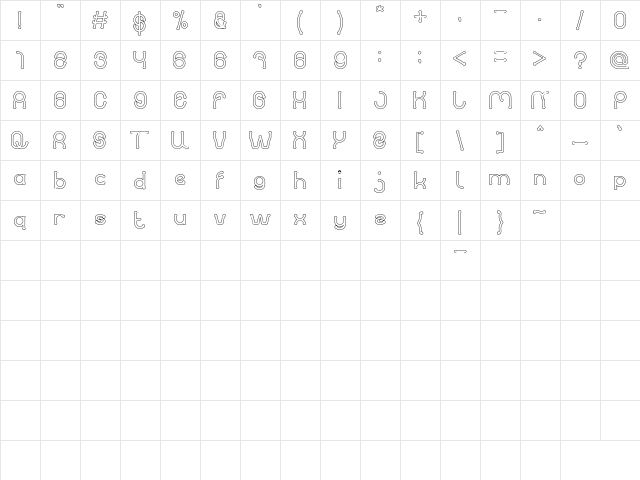
PANEL Regular Free Font
PANEL Regular
Complete PANEL Regular glyph index. Displaying only characters natively supported by PANEL Regular font.
Design Context for PANEL
PANEL is a composed and adaptable typeface that performs quietly and consistently across a wide range of design contexts.